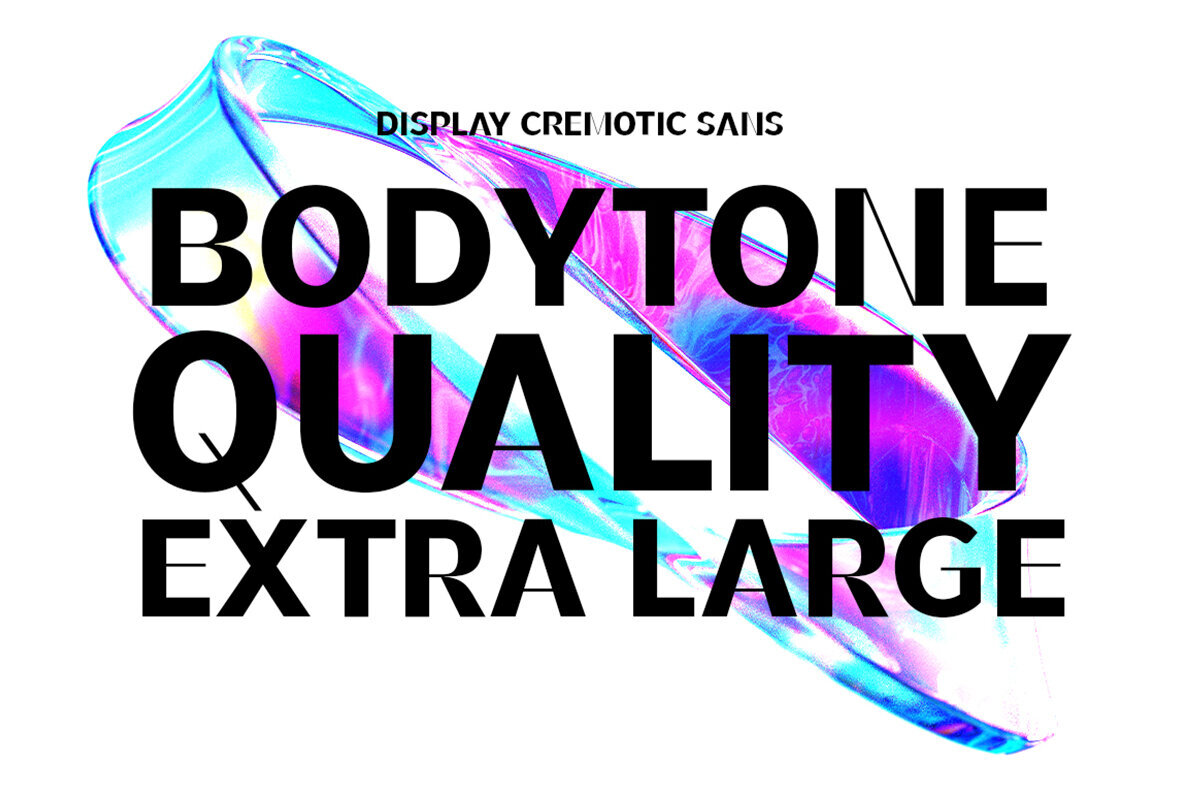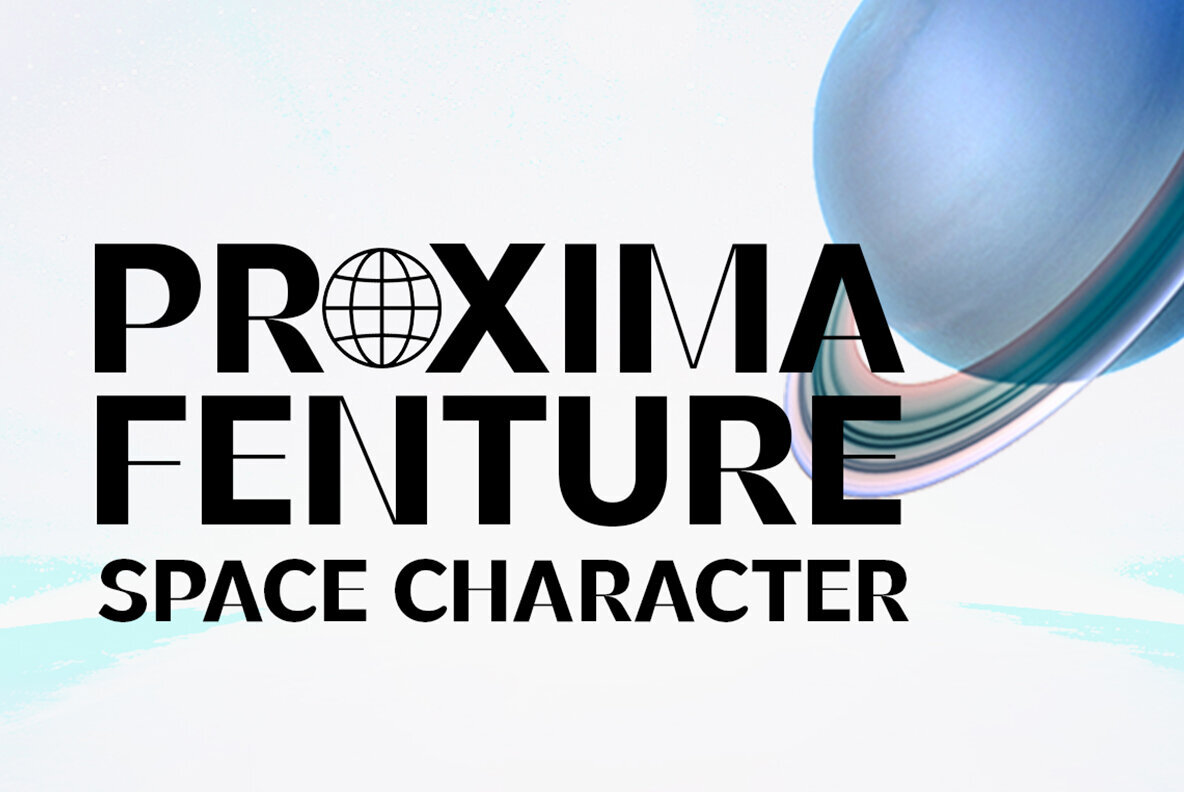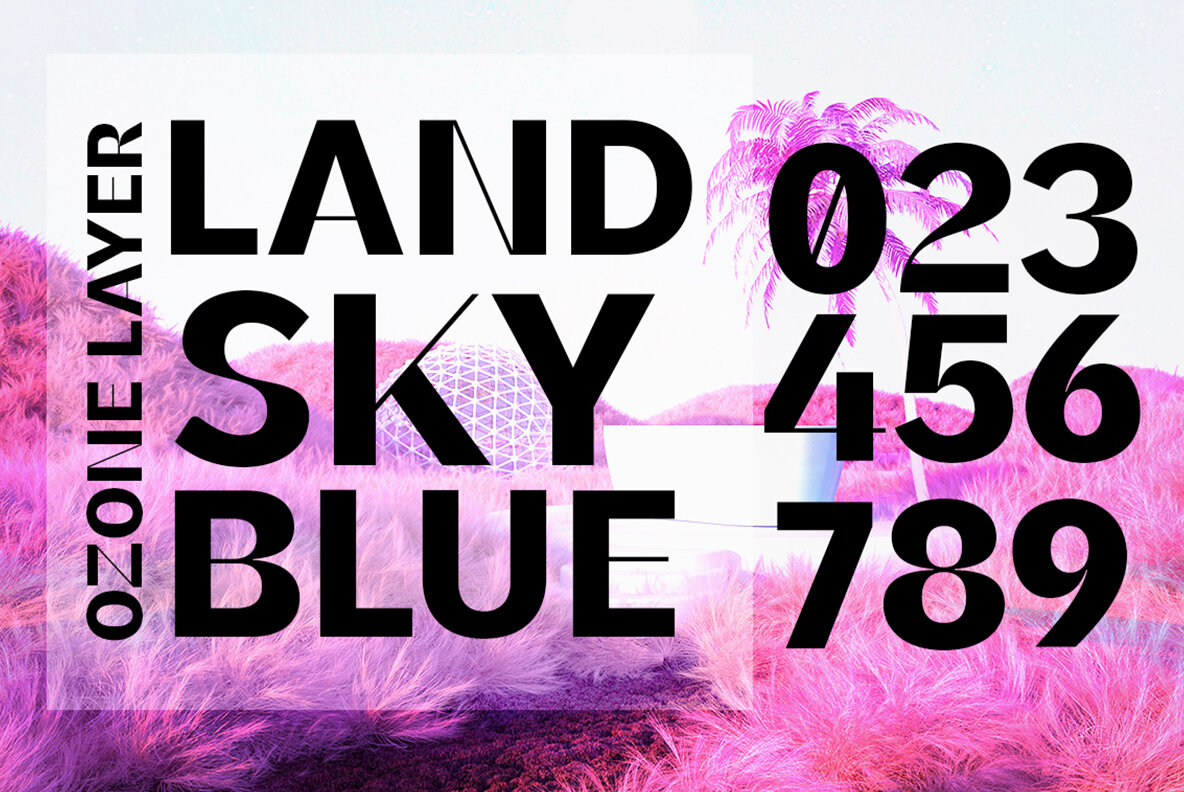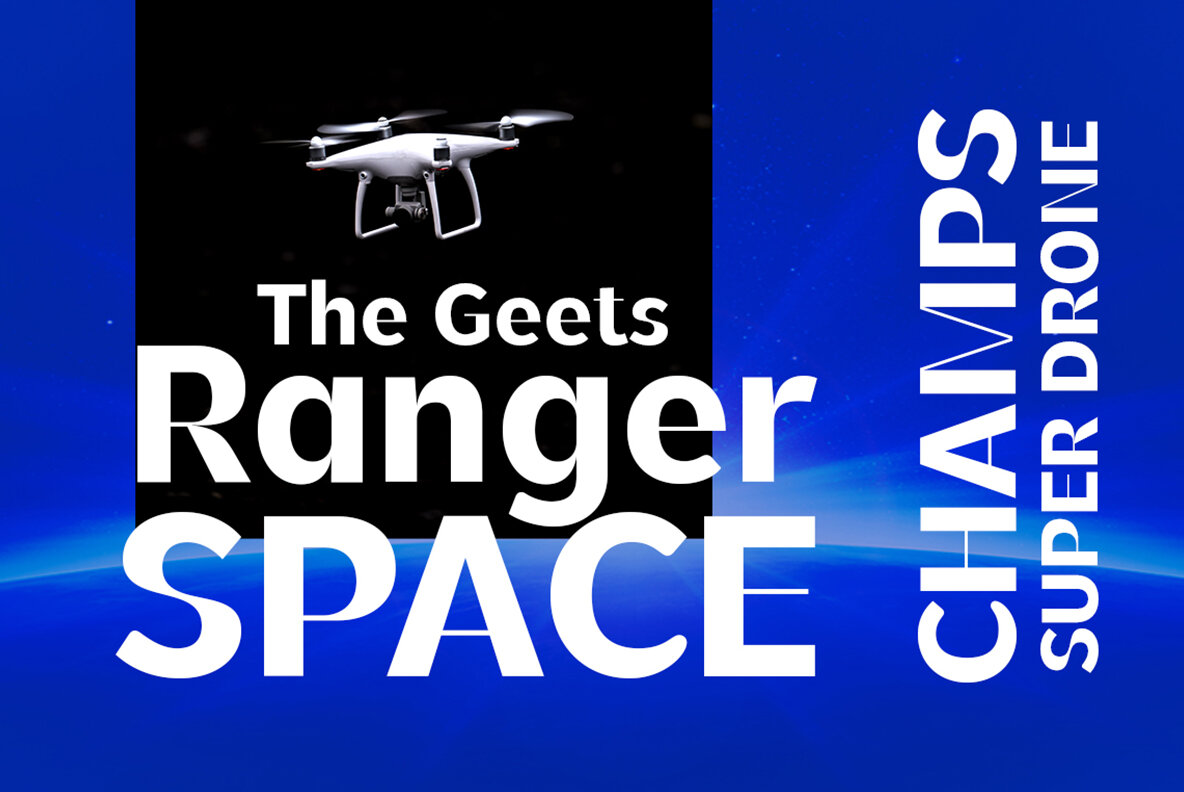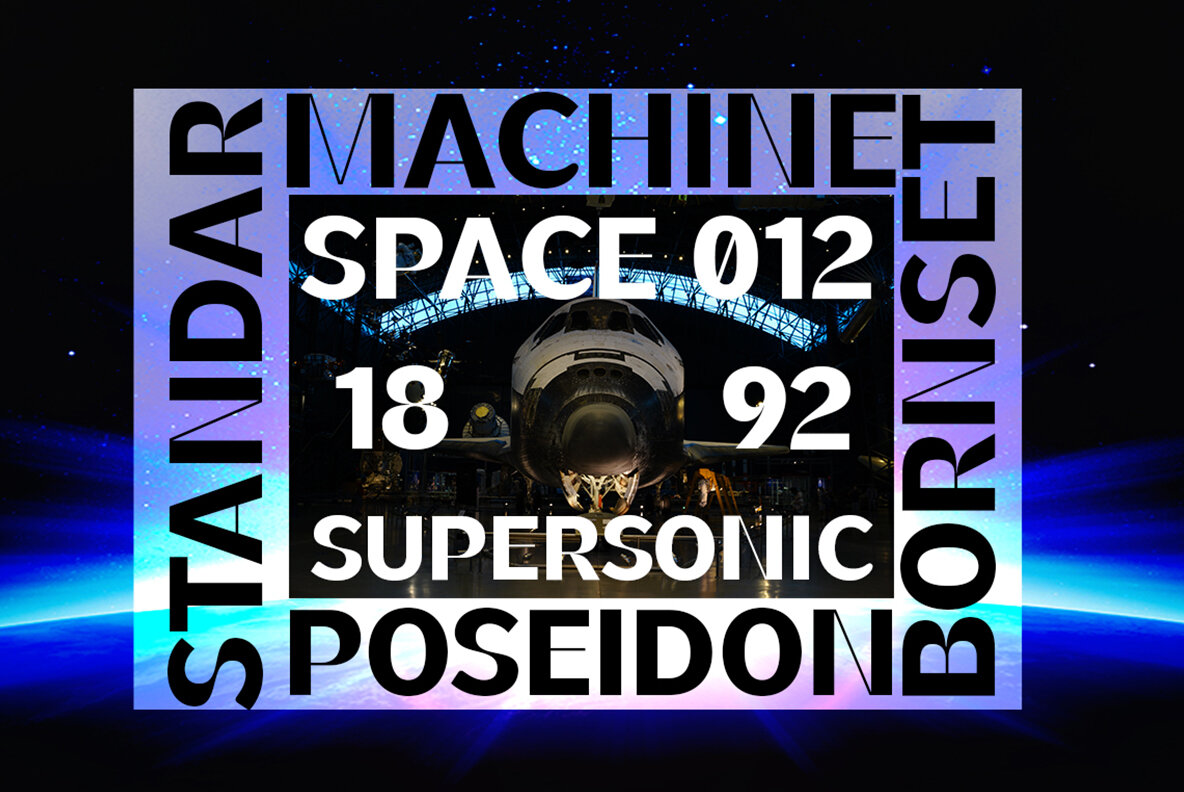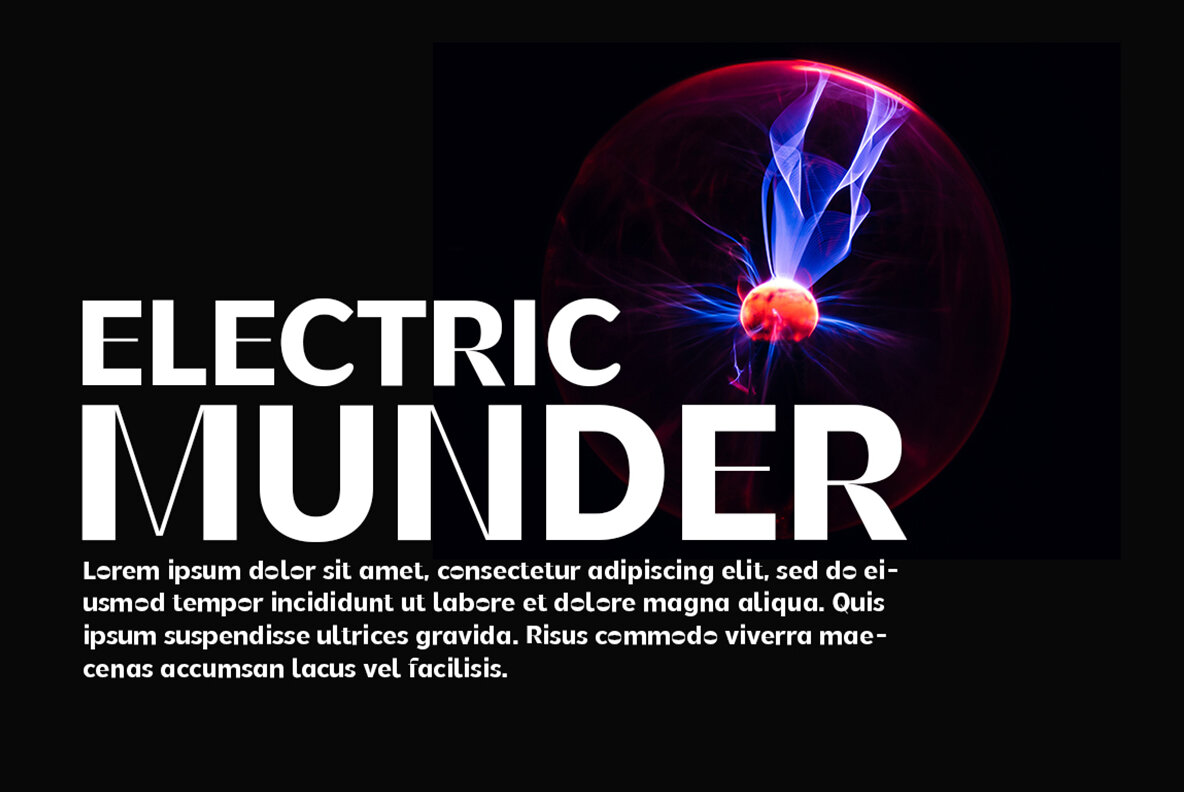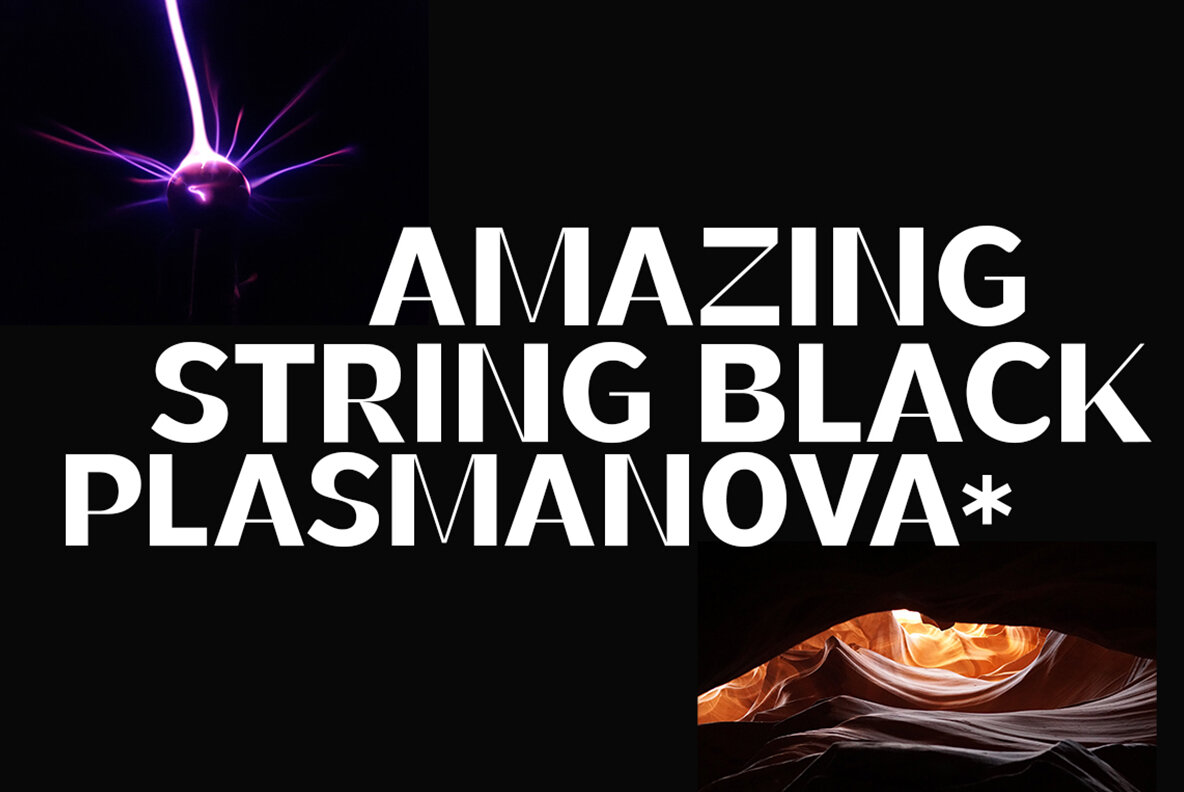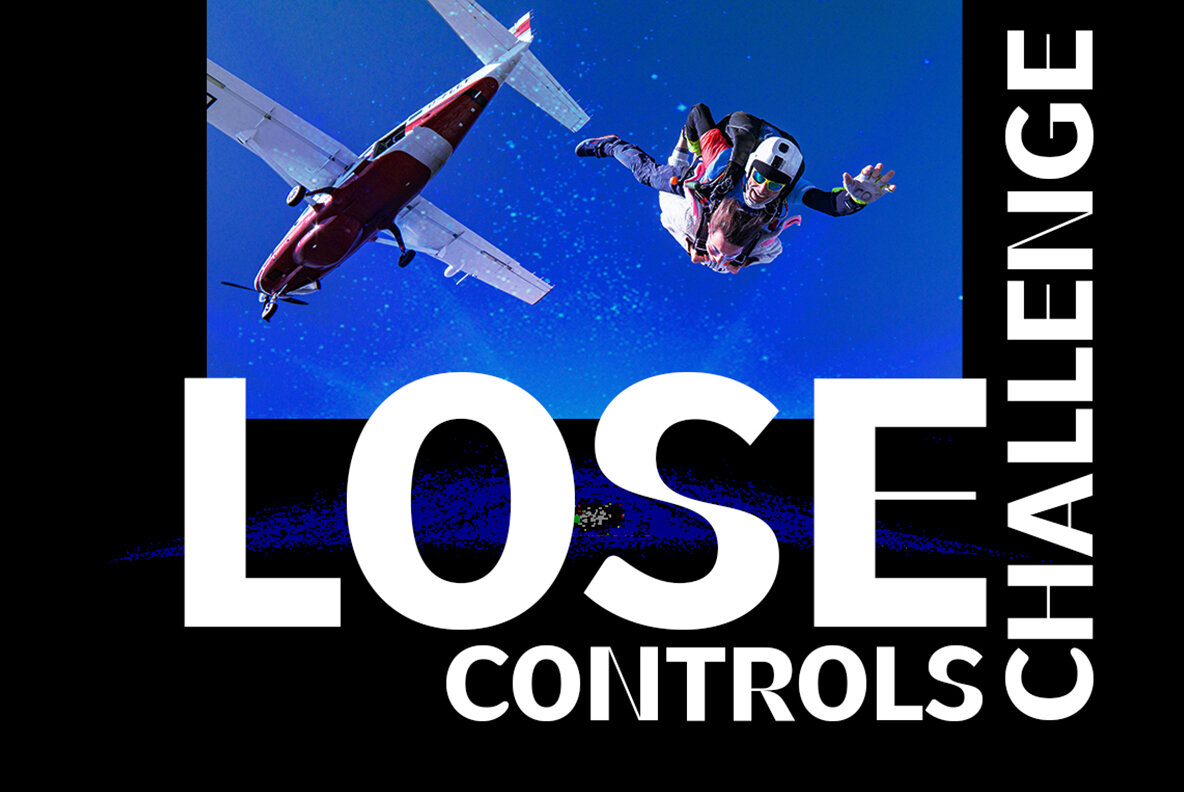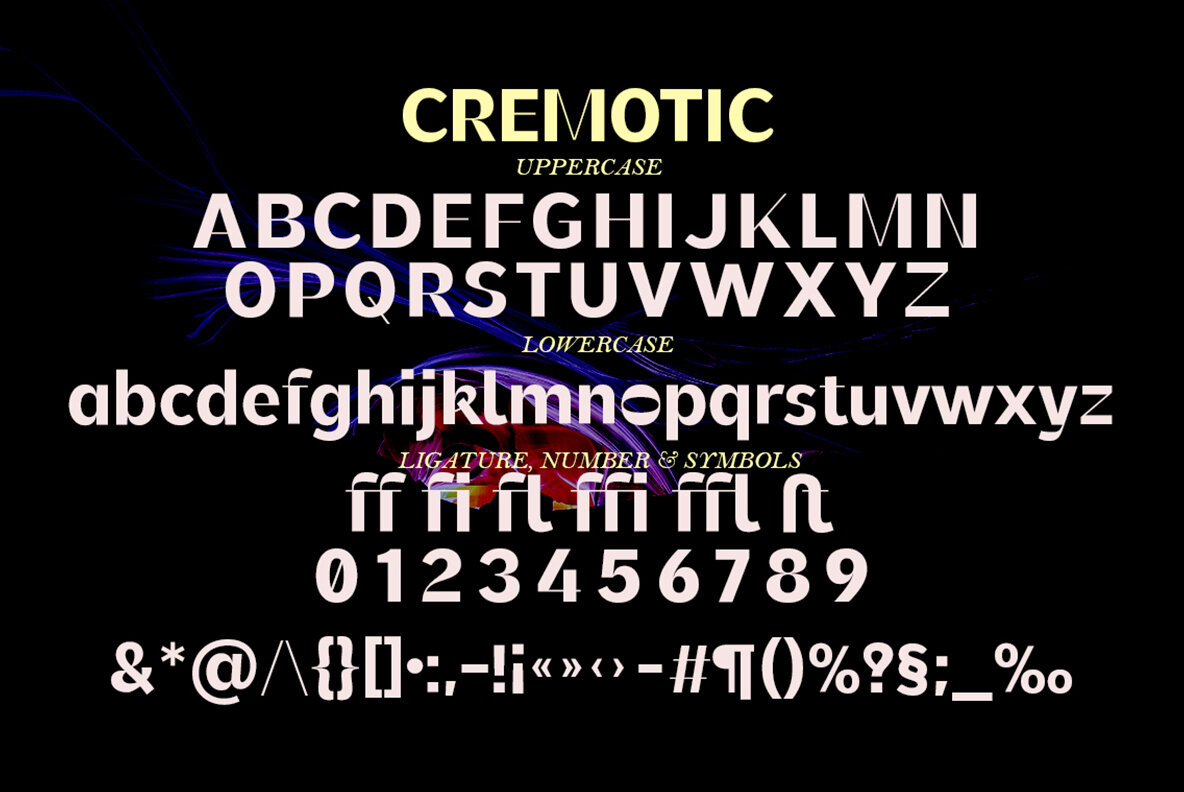
Cremotic Font
Cremotic Bold
Cremotic Sans is stylish with extreme cuts, sharp angles and interactive straps. Affected characters are spread across three capital-only subfamilies, with distinct styles, and distinct personalities. The bold separation of characters and the considered standard of ligature create a type that is solid, modern and attractive.